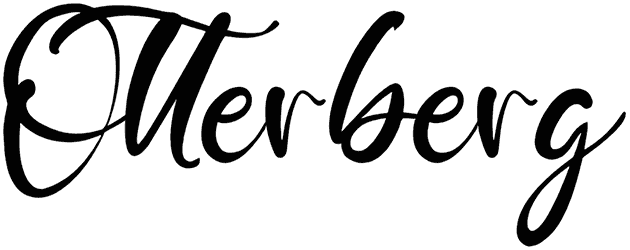
Otterberg Font
The script font Otterberg can give your work a contemporary look and feel. Even though the letters in this elegant font are unreadable, by breaking up the monotony of your text, Otterberg can make it easy on the eyes.